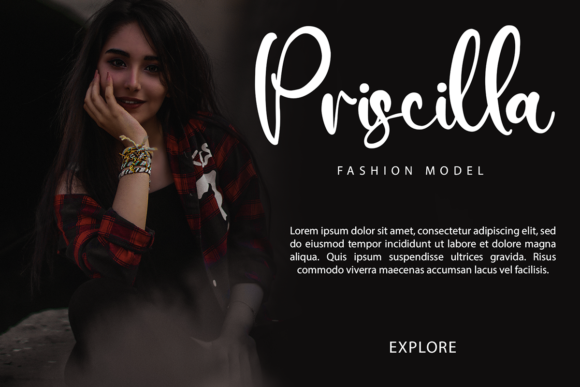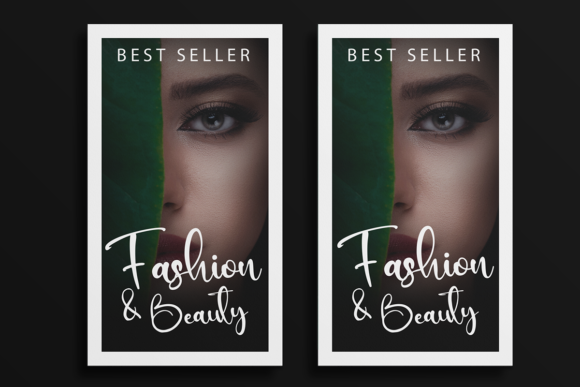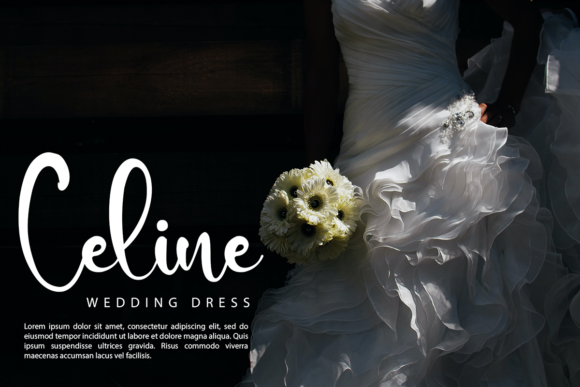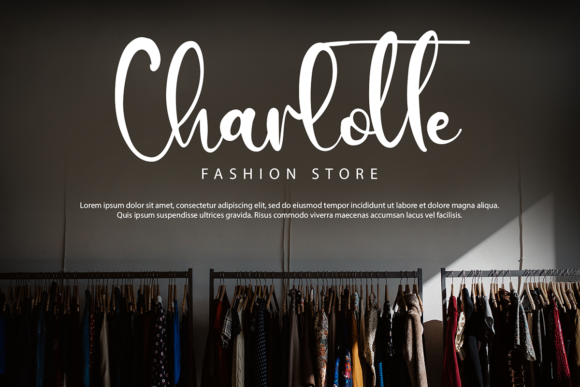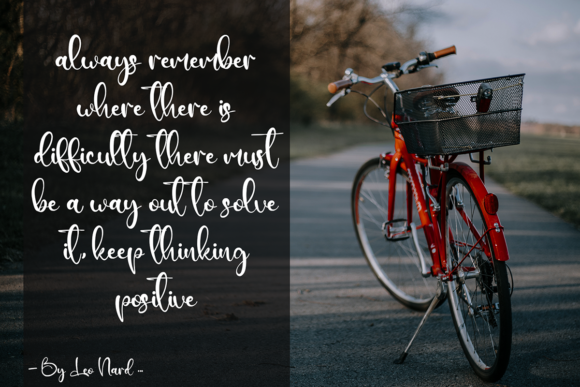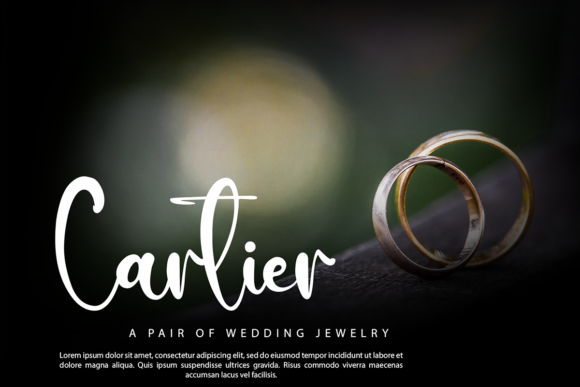
Introducing Cathedrall Font: Elevate Your Designs with Modern Script Elegance
Are you on the hunt for a font that exudes modern sophistication and versatility? Look no further than Cathedrall Font, a stunning script font designed to elevate your creative projects. Whether you’re a designer, crafter, or DIY enthusiast, Cathedrall is the perfect addition to your typography arsenal.
What is Cathedrall Font?
Cathedrall is a modern script font that boasts a unique blend of elegance and playfulness. This beautiful font is meticulously crafted to provide a wide range of creative possibilities, making it ideal for various design applications. From logotypes and branding designs to logos, digital lettering arts, and more, Cathedrall Font is the perfect choice for those seeking a modern, stylish, and highly versatile font.
Key Features of Cathedrall Font
- Modern Script Style: Cathedrall Font features a sleek, modern script style that adds a touch of sophistication to any design.
- Comprehensive Character Set: The font includes a vast collection of letters and numbers, ensuring you have everything you need to create stunning designs.
- Multipurpose: Cathedrall Font is perfect for various design applications, including logotypes, branding designs, logos, digital lettering arts, t-shirt/apparel, posters, magazines, signs, advertising designs, and more.
- Easily Customizable: The font is designed to be easily customized, allowing you to tailor it to your specific design needs.
Design Applications for Cathedrall Font
Cathedrall Font is an incredibly versatile font that can be used in a wide range of design applications. Here are some ideas to get you started:
- Logotypes and Branding Designs: Create a lasting impression with a custom logotype or branding design that showcases your unique identity.
- Logos: Design a stunning logo that perfectly represents your brand or business.
- Digital Lettering Arts: Add a touch of elegance to your digital lettering arts with Cathedrall Font’s beautiful script style.
- T-Shirt/Apparel Design: Create eye-catching apparel designs that stand out from the crowd.
- Posters and Magazines: Add a touch of sophistication to your posters and magazines with Cathedrall Font’s modern script style.
- Signs and Advertising Designs: Create stunning signs and advertising designs that grab attention and leave a lasting impression.
Why Choose Cathedrall Font?
With so many fonts available, why choose Cathedrall Font? Here are just a few reasons why designers and crafters love this modern script font:
- Unique and Modern Design: Cathedrall Font features a unique and modern design that sets it apart from other fonts.
- Highly Versatile: The font is perfect for a wide range of design applications, making it a valuable addition to your typography collection.
- Easily Readable: Despite its elegant script style, Cathedrall Font is highly readable, making it perfect for body text and headlines.
- Exceptional Quality: The font is meticulously crafted to ensure exceptional quality and consistency.
Tips for Using Cathedrall Font
To get the most out of Cathedrall Font, here are some tips to keep in mind:
- Experiment with Font Sizes: Cathedrall Font looks stunning in a variety of font sizes, so don’t be afraid to experiment and find the perfect size for your design.
- Pair with Complementary Fonts: Pair Cathedrall Font with complementary fonts to create a unique and visually appealing typography combination.
- Use in Combination with Images: Combine Cathedrall Font with high-quality images to create stunning designs that capture attention.
| Font Name | Cathedrall Font |
| Author | staircasestudio20 |
In conclusion, Cathedrall Font is a modern script font that offers a unique blend of elegance, versatility, and sophistication. With its comprehensive character set, multipurpose design, and exceptional quality, this font is perfect for designers, crafters, and DIY enthusiasts looking to elevate their creative projects. Whether you’re designing logotypes, branding designs, logos, or more, Cathedrall Font is the perfect choice for those seeking a modern, stylish, and highly versatile font.